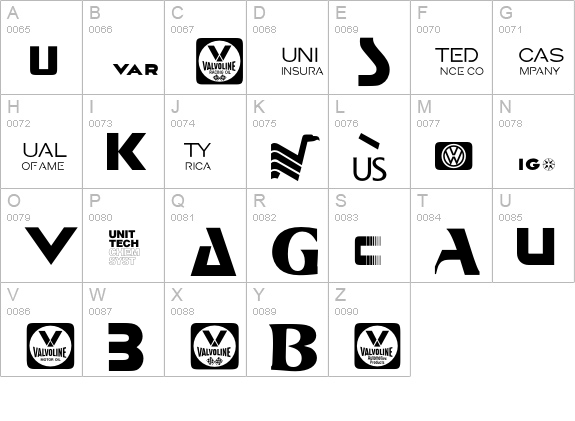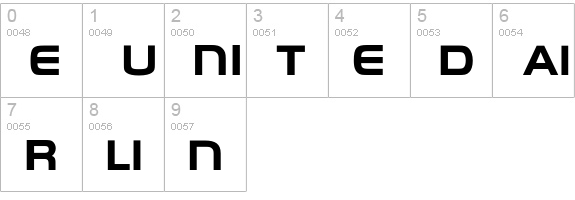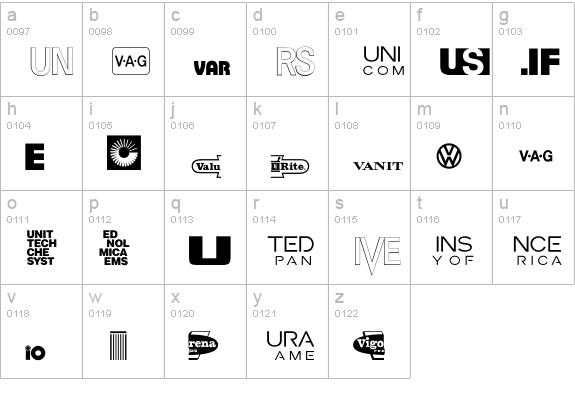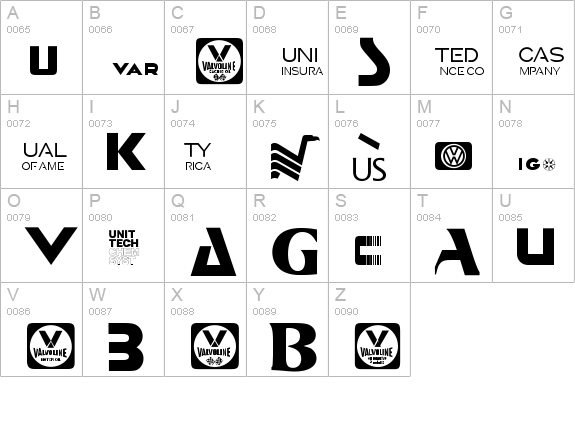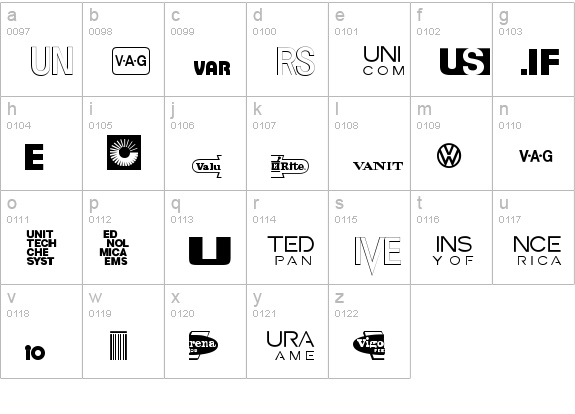
LogosCompanyP19 Font Details
LogosCompanyP19 is a stylish and modern font that exudes professionalism and sophistication. With its clean lines and sleek design, this font is perfect for a wide range of projects, from branding to marketing materials. The versatility of LogosCompanyP19 makes it a top choice for designers looking to make a statement with their typography. What sets LogosCompanyP19 apart is that it is available for free download at FontsMarket.com. This means that you can access this high-quality font without any cost, making it a valuable addition to your font collection. Whether you're working on a personal project or a client's design, LogosCompanyP19 is sure to elevate your work and leave a lasting impression. Download LogosCompanyP19 today and take your designs to the next level!